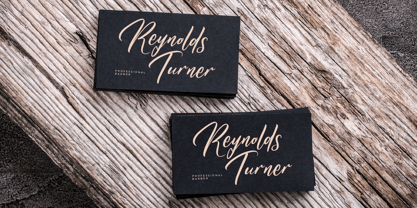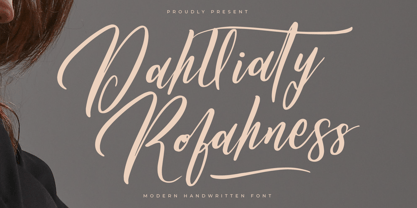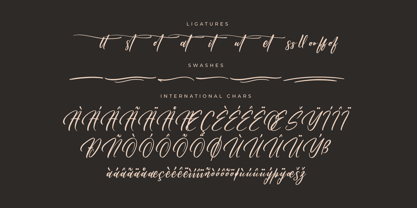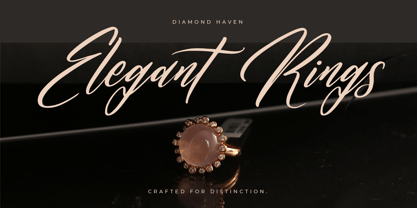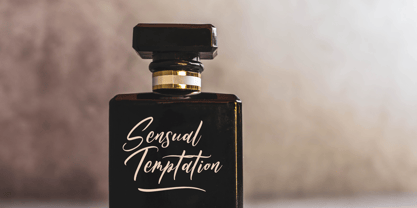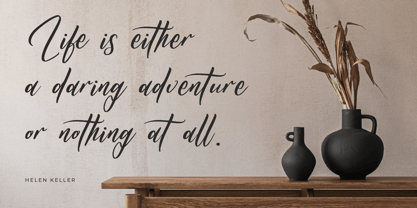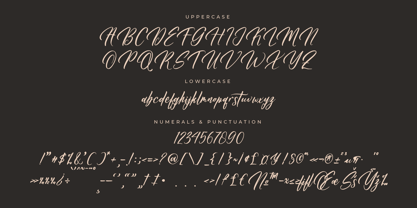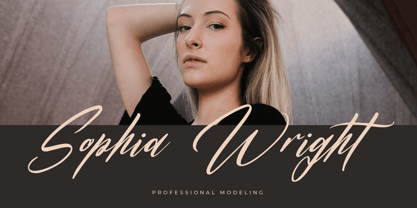
Dahlliaty Rofahness
by Letterena Studios
The Dahlliaty Rofahness Font Family was designed by Heru Utama Putra and published by Letterena Studios. Dahlliaty Rofahness contains 2 styles and family package options. More about this family
Dahlliaty Rofahness is a dazzling script font exuding elegance and sophistication. Its graceful strokes and intricate details captivate the eye, making it perfect for wedding invitations, branding, and elegant designs. With its timeless appeal and delicate curves, Dahlliaty Rofahness adds a touch of luxury to any project.